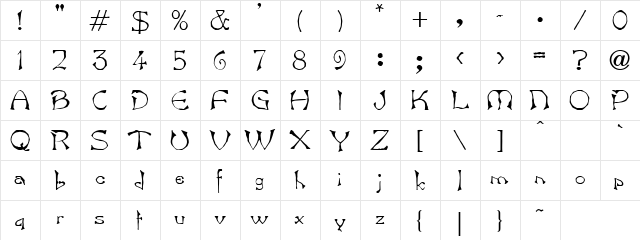
Adalbert Regular
Design Context for Adalbert Typeface
Adalbert is a composed and adaptable typeface that performs quietly and consistently across a wide range of design contexts.